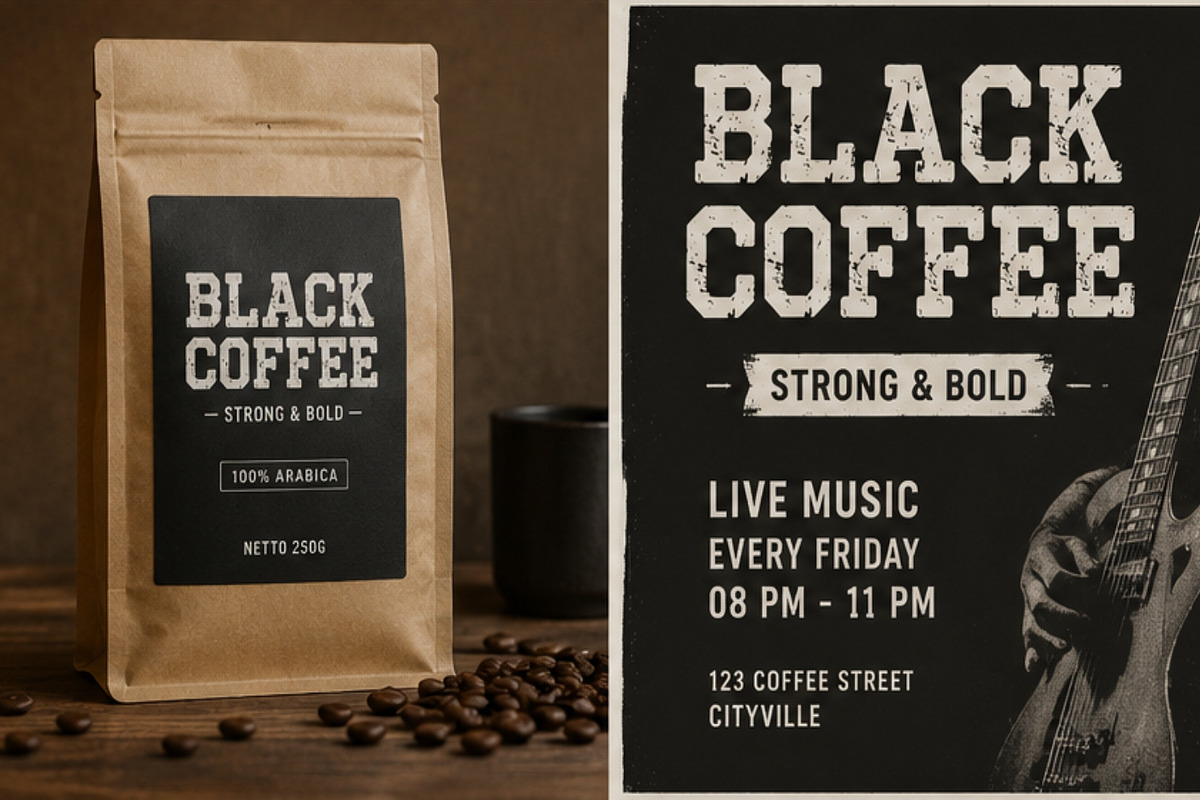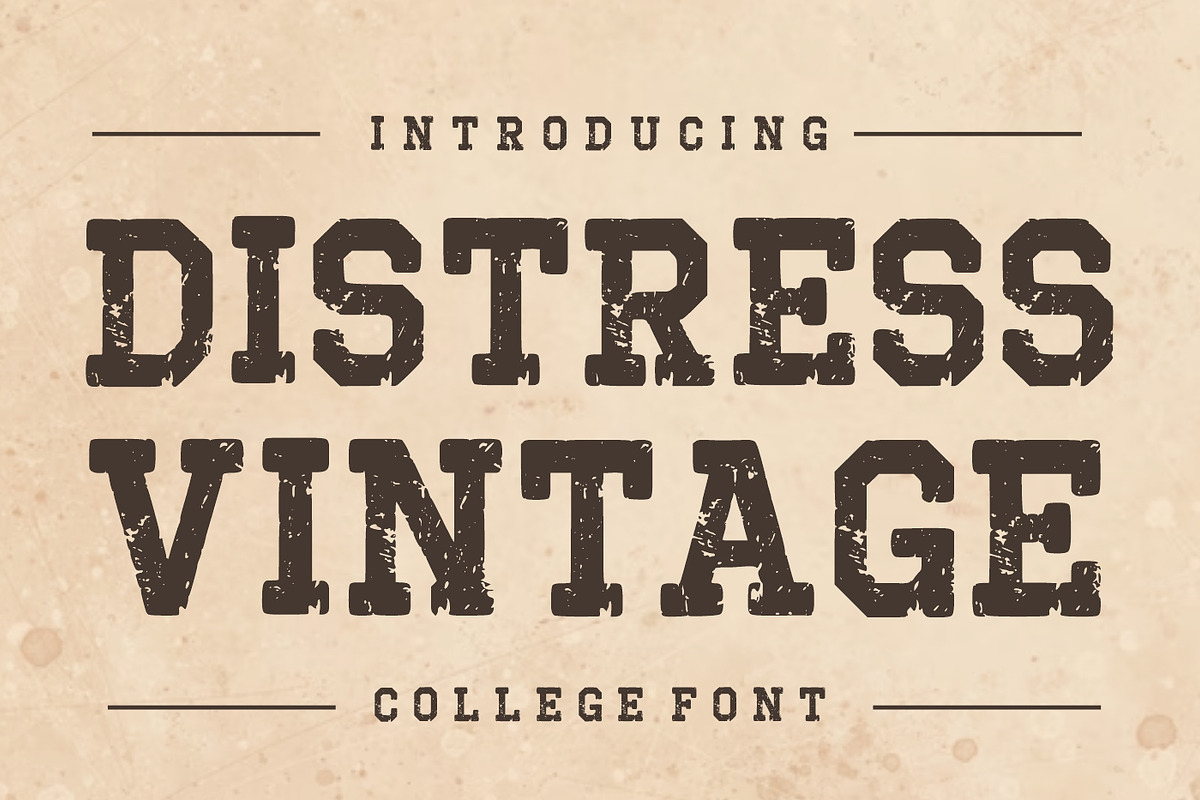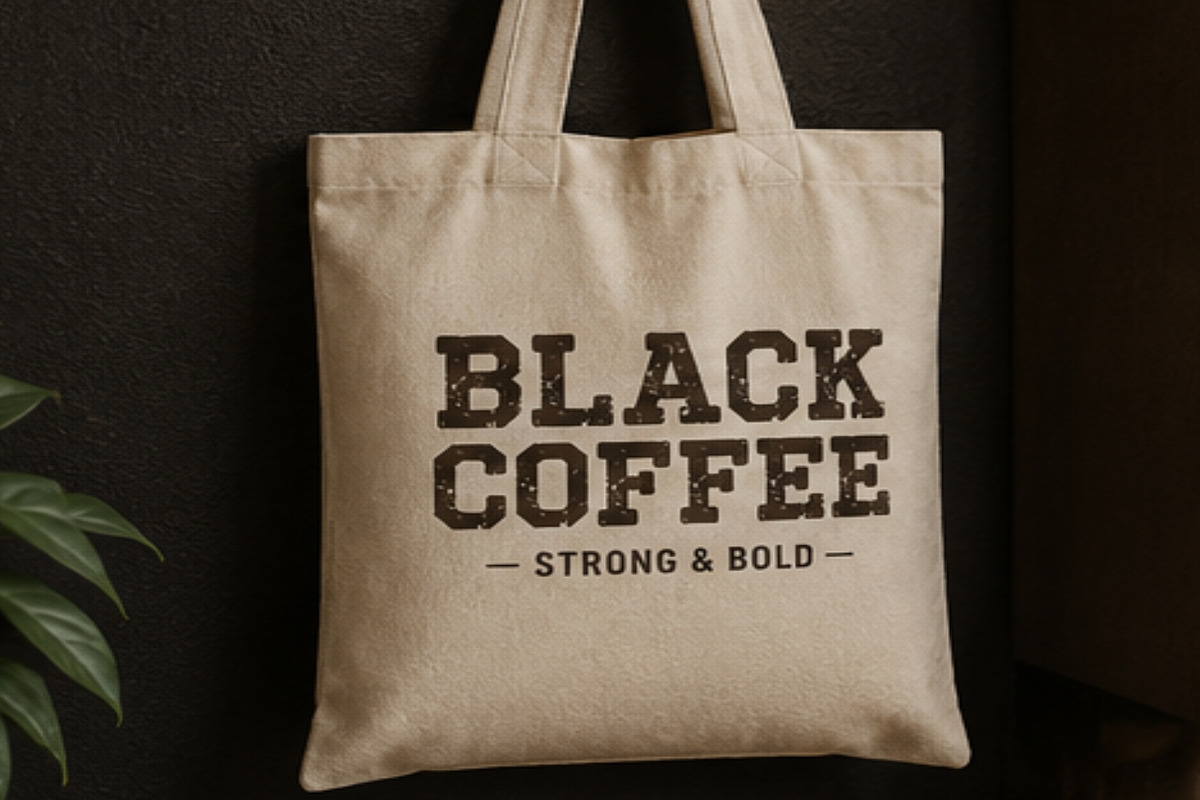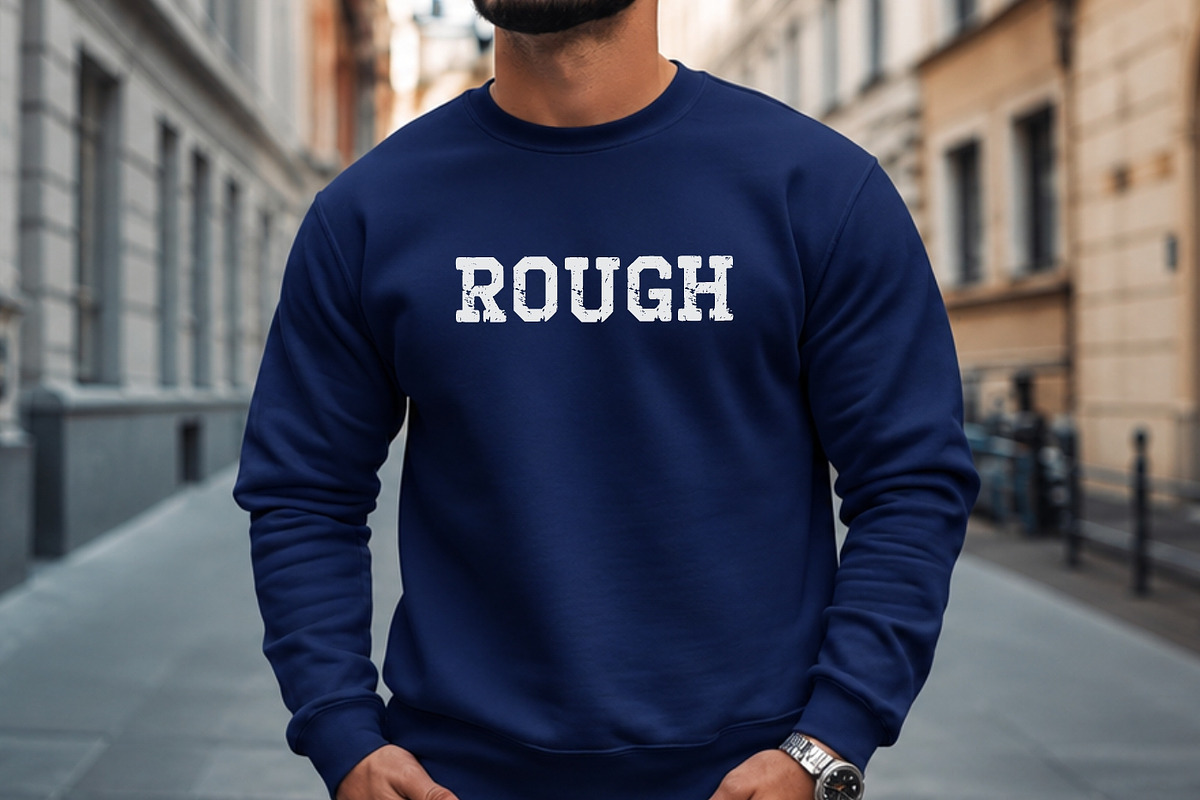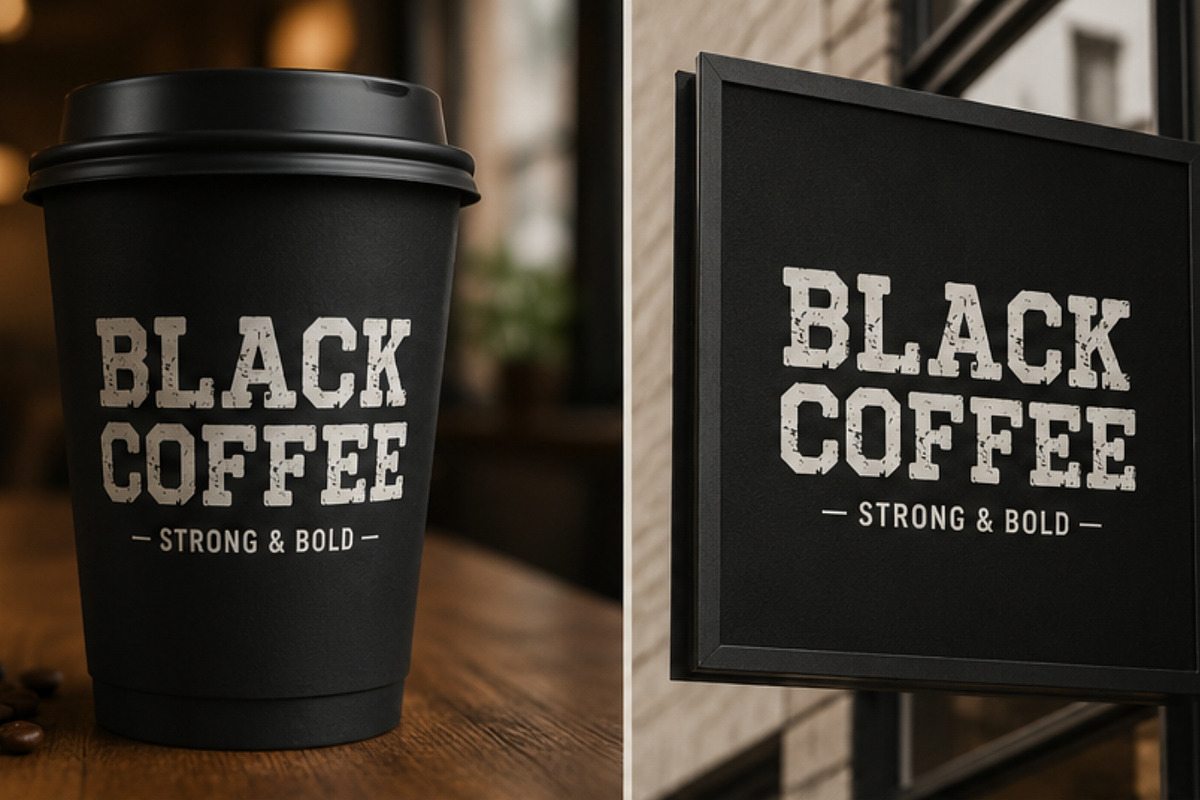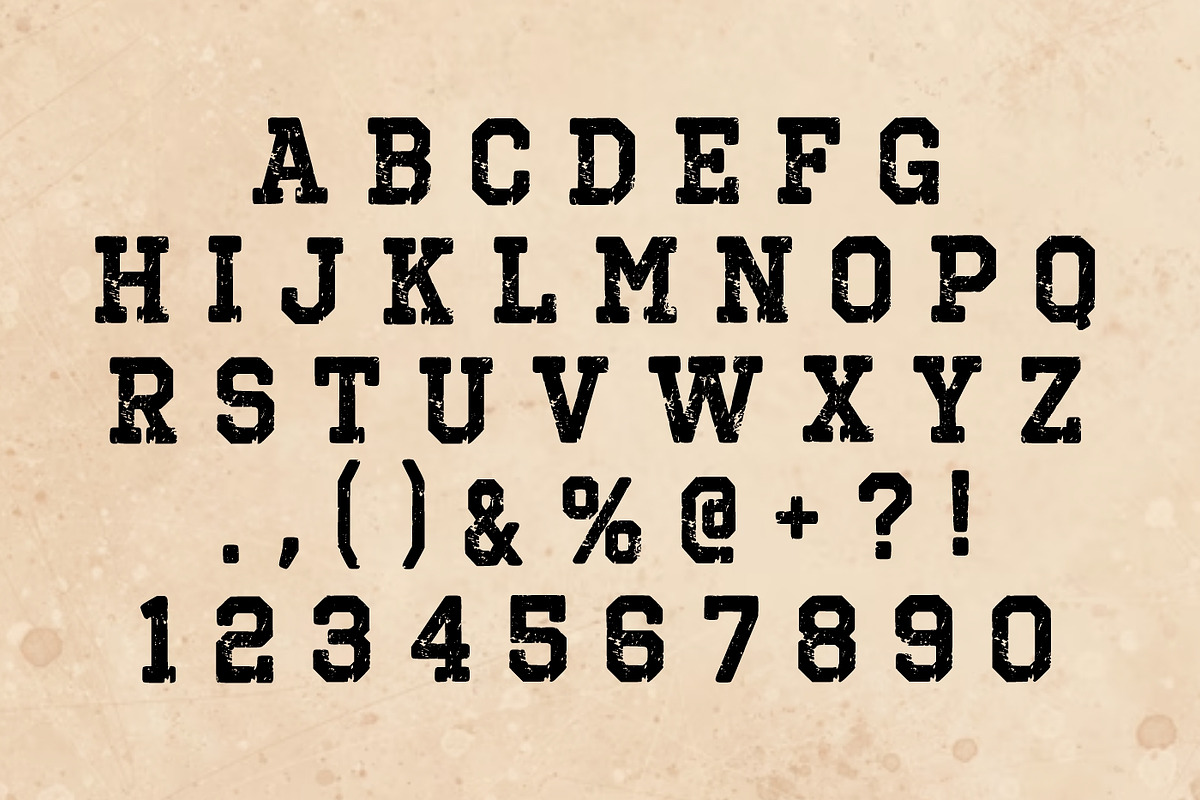
Distress Vintage
Distress Vintage is a bold collegiate serif font featuring authentic weathered textures and classic athletic styling. Inspired by vintage university apparel, old-school sports teams, and retro campus culture, this font brings a rugged yet timeless character to any design. Perfect for varsity logos, team jerseys, college merchandise, sports branding, posters, apparel, badges, packaging, and retro-inspired projects. Its distressed appearance adds instant vintage charm, making your designs feel authentic, bold, and full of heritage.